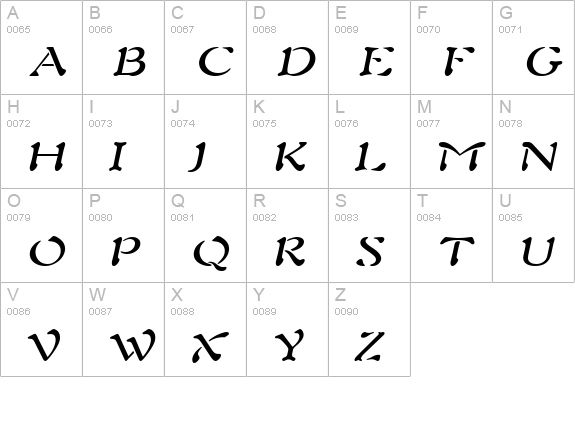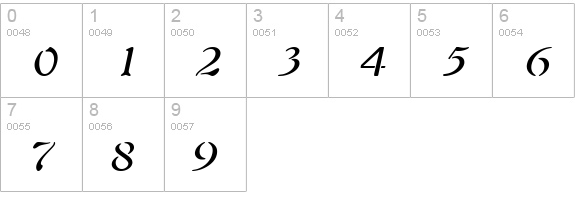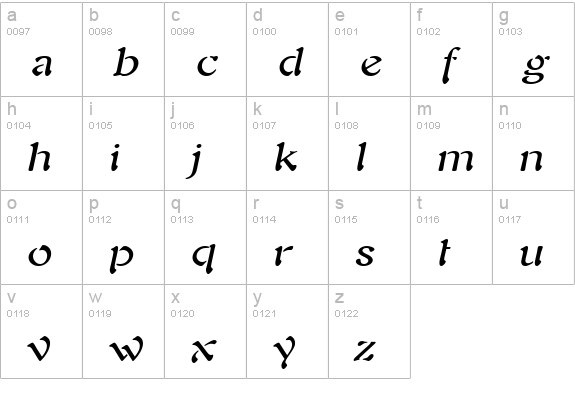
Freedom 9 Wide Italic Font Details
Freedom 9 Wide Italic is a distinctive, extended-width, italic variant in the Freedom typeface family \xE2\x80\x94 well suited to design and typography projects.
The Freedom 9 Wide Italic font exudes a sense of liberation and creativity with its bold and dynamic italic styling. This modern typeface strikes the perfect balance between elegance and readability, making it ideal for a wide range of design projects. The sleek and sophisticated curves of this font add a touch of sophistication to any text, while the wide spacing ensures optimal legibility. Experience the freedom to express your ideas with the Freedom 9 Wide Italic font, as it effortlessly captures attention and conveys a sense of modernity and innovation. Whether you're designing a poster, logo, website, or any other creative project, this font is sure to make a lasting impression. Best of all, this versatile typeface is freely available for download at FontsMarket.com, allowing you to unleash your creativity without any constraints. Embrace the freedom to design with the Freedom 9 Wide Italic font and elevate your projects to new heights of style and sophistication.